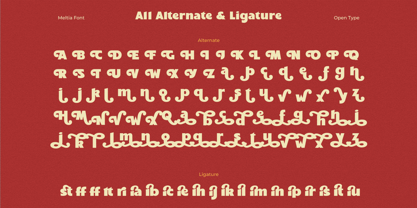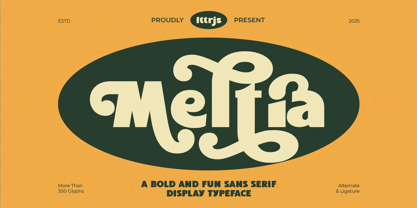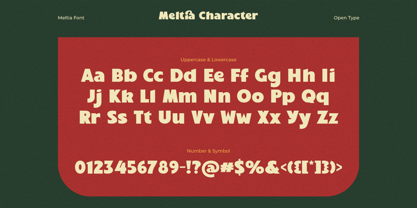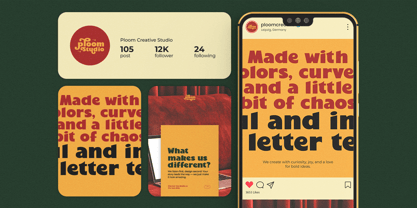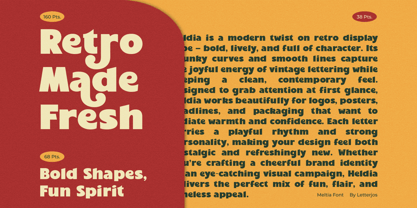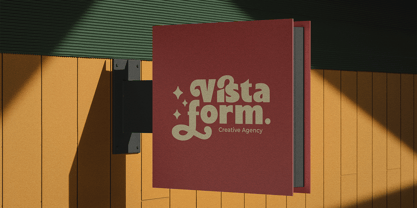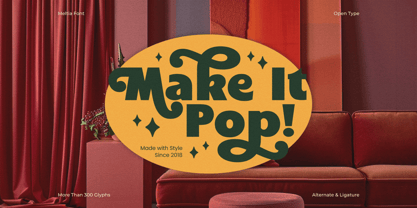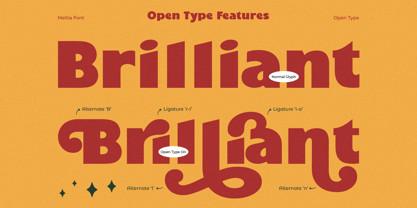
Meltia
por Jos Gandos
La familia tipográfica Meltia fue diseñada por Jos Gandos y publicada por Jos Gandos. Meltia contiene 1 estilos. Más información sobre esta familia
Meet Meltia, a bold and fun sans serif display font that brings personality and playfulness to your designs. Inspired by vintage sign lettering and groovy 70s vibes, Meltia is crafted with smooth curves, bold forms, and dynamic alternates that make your typography truly stand out. With 300+ glyphs, alternate characters, and creative ligatures, Meltia offers flexibility for logo design, packaging, social media graphics, and modern retro branding. Whether you want to create something nostalgic or vibrant, Meltia’s quirky charm fits perfectly in both digital and print projects.